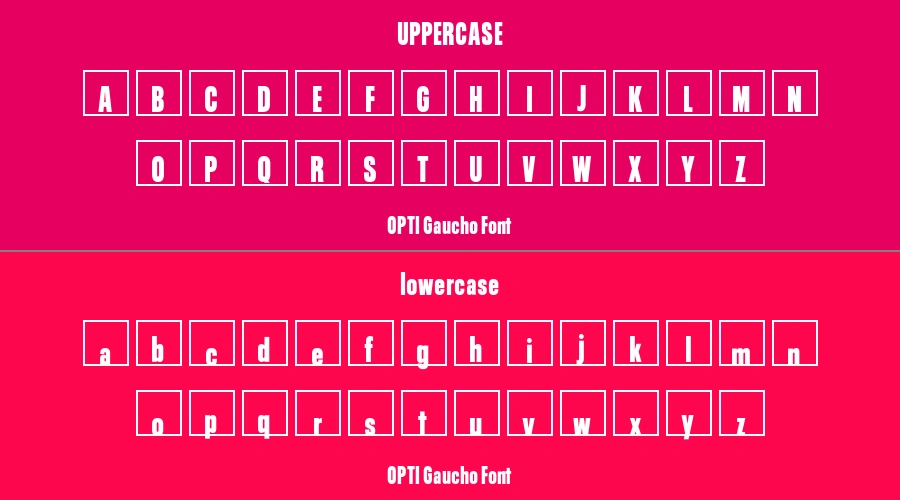
About OPTI Gaucho Font
Designed with precision, OPTI Gaucho Font merges clean lines with professional reliability in every character. This versatility makes it particularly effective for environmental graphics, where durability and quality certification directly impact communication quality. Each letterform demonstrates meticulous craftsmanship.
Technical excellence shines through elements like open counters and kerning pairs, enhancing typographic versatility. In image captions settings, OPTI Gaucho Font proves its worth through superior print fidelity. The thoughtful execution of stem weight and standards alignment ensures professional results.